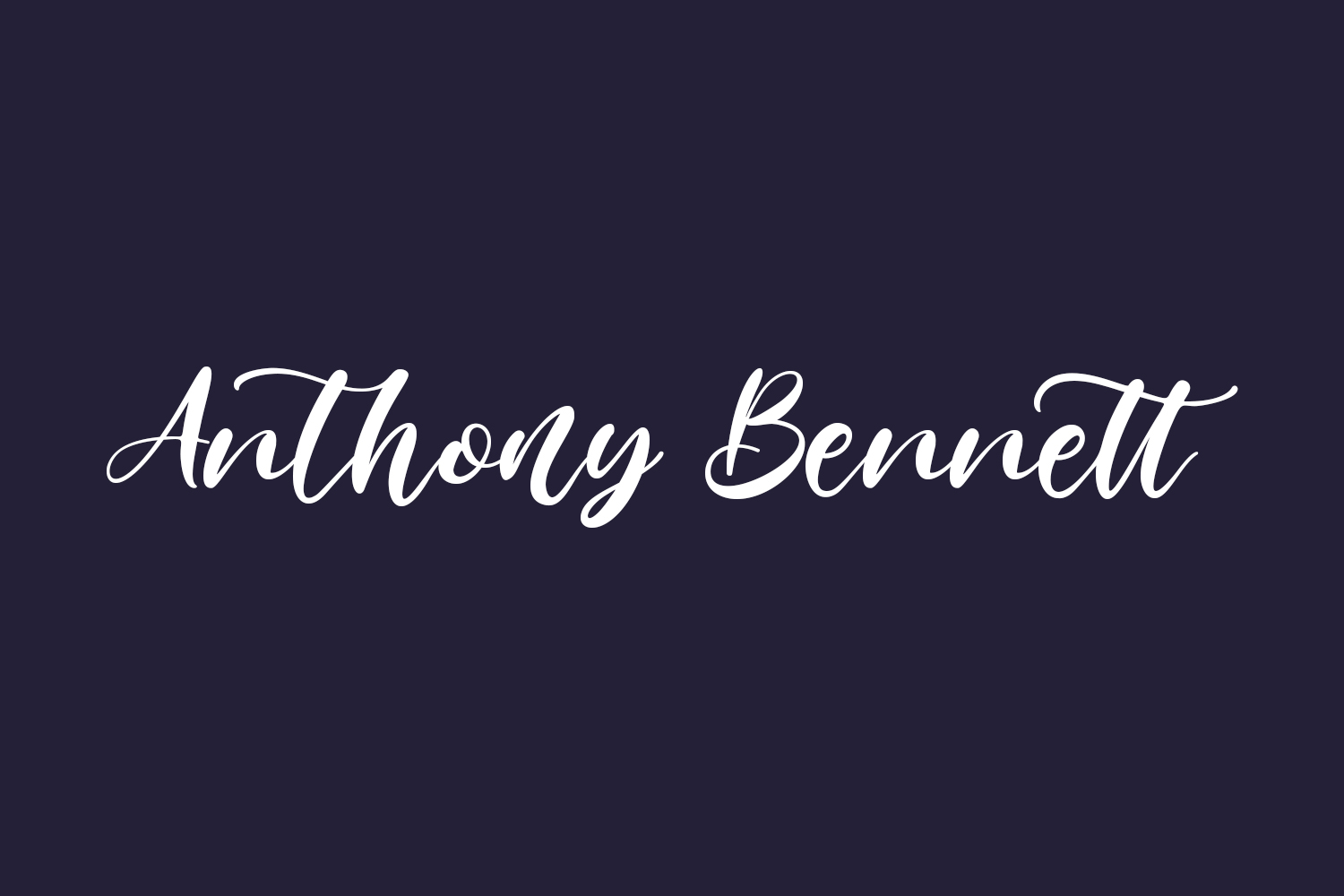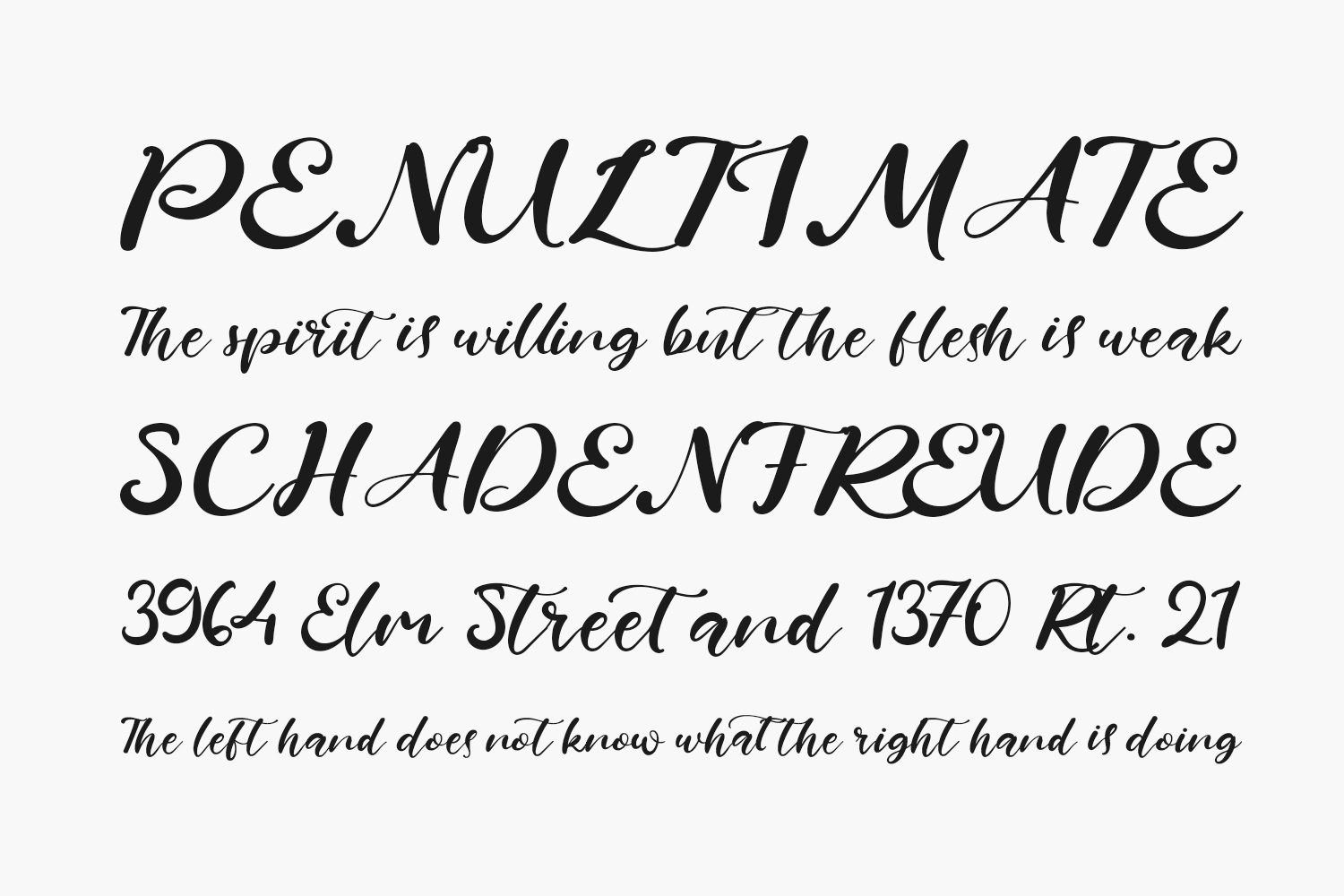
Anthony Bennett Free Font is a modern and playful handwritten script font. It’s great for crafters and designers. Anthony Bennett Free Font was designed by Kong Font and is free for personal or commercial use.